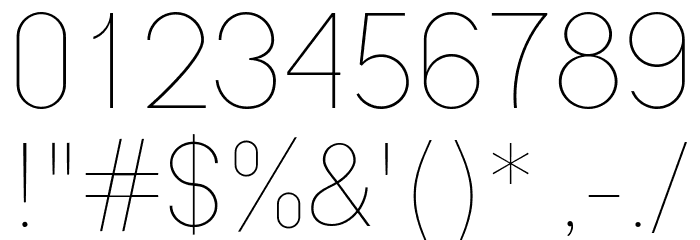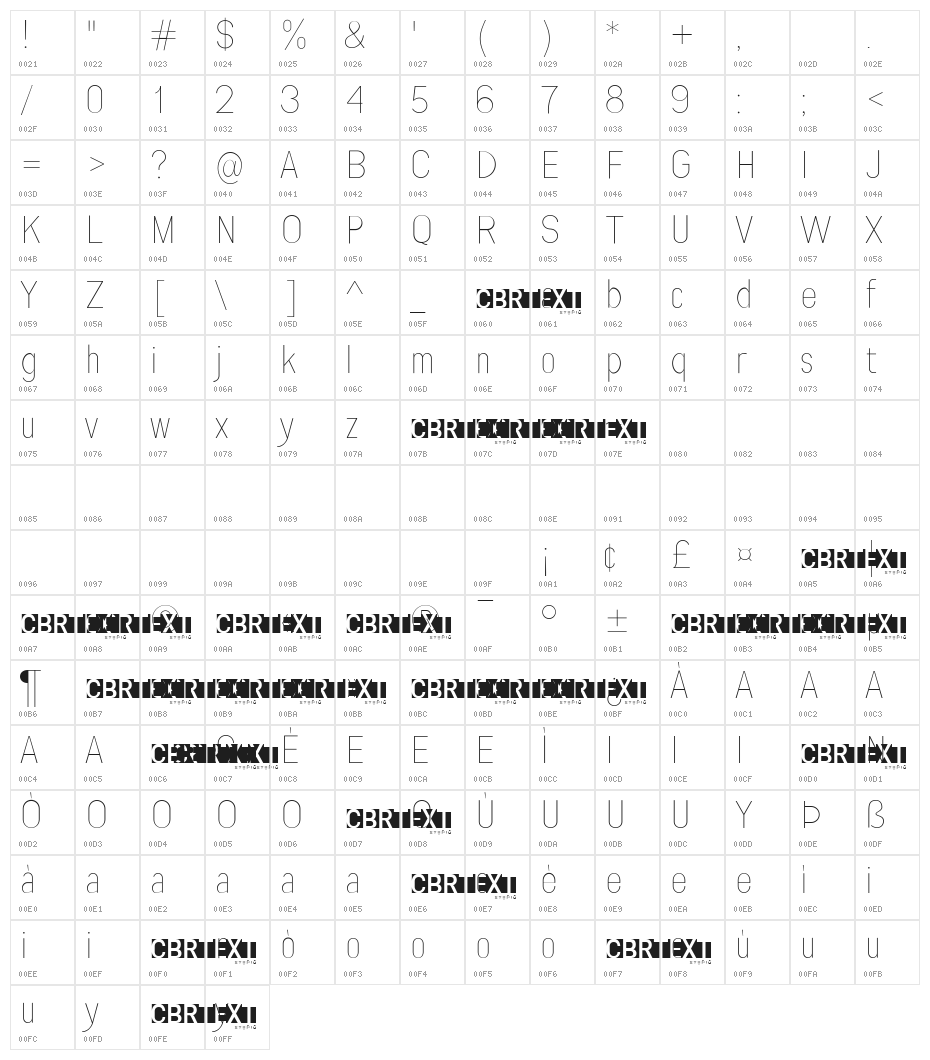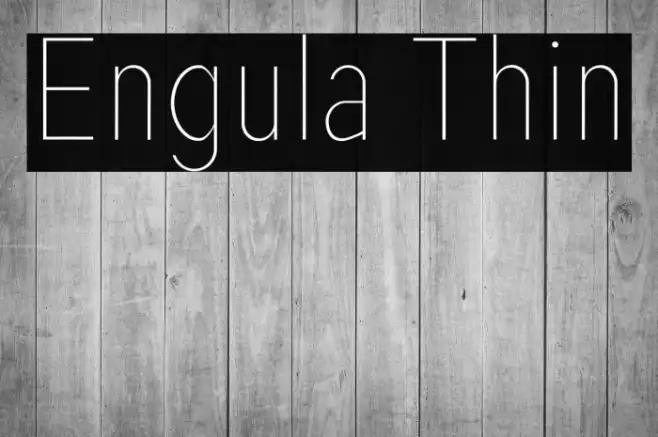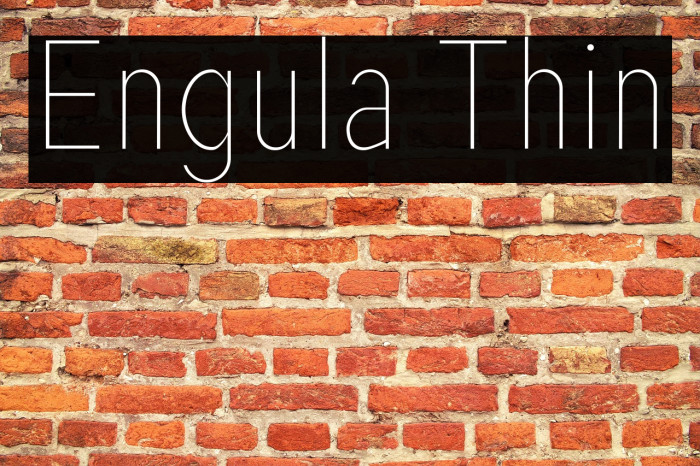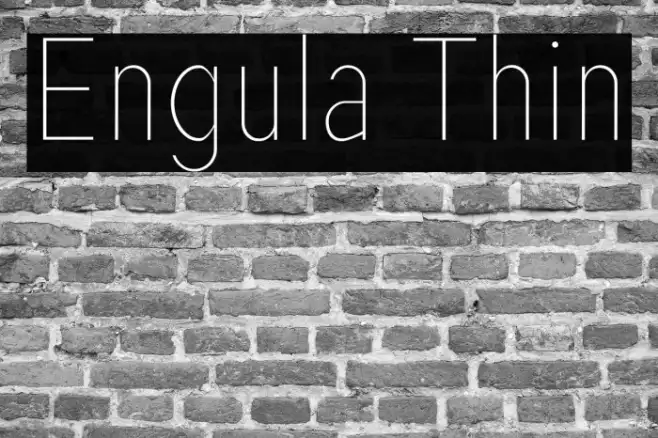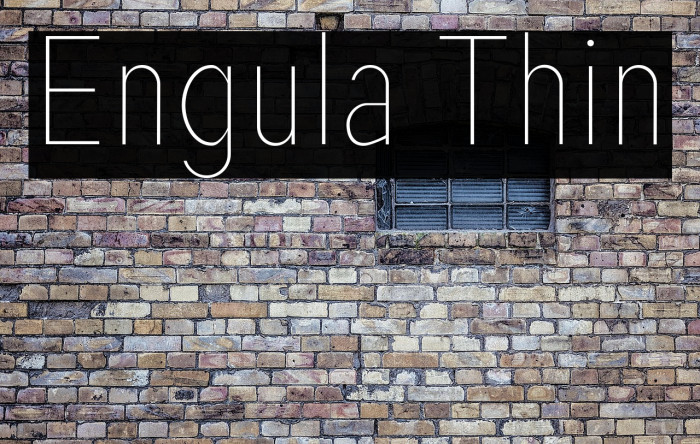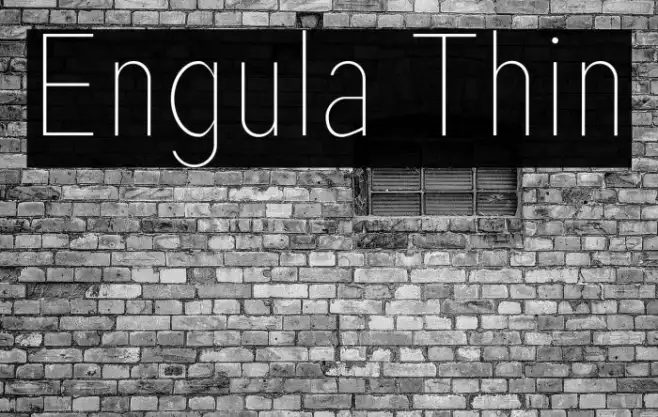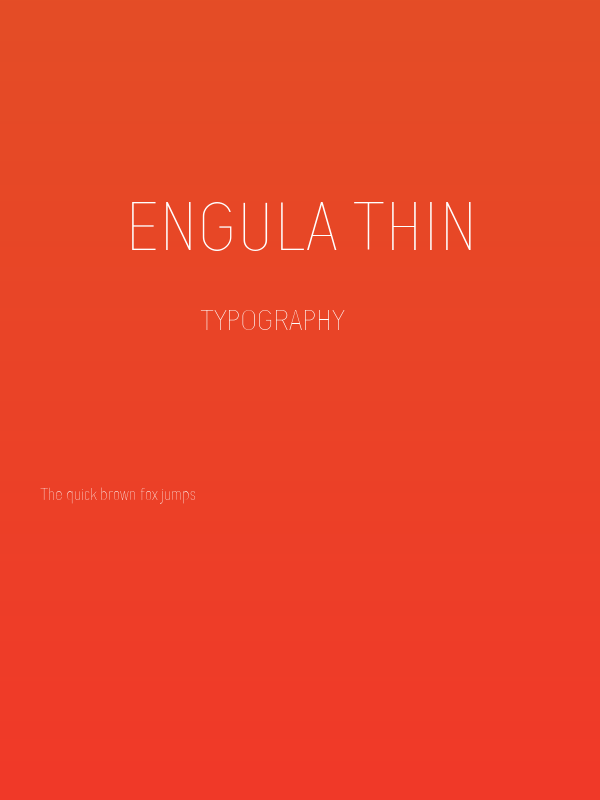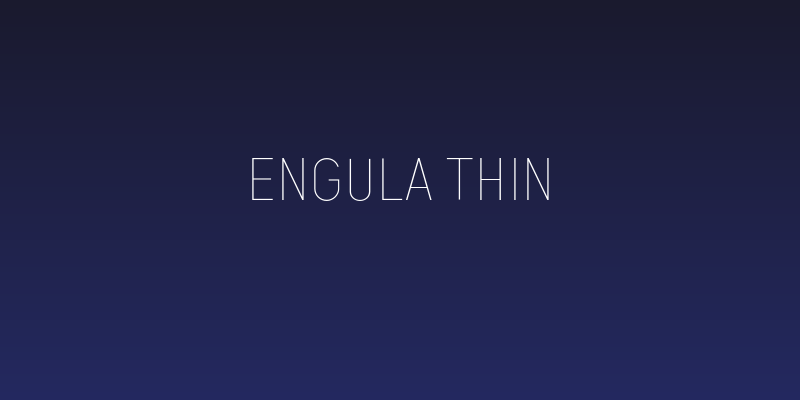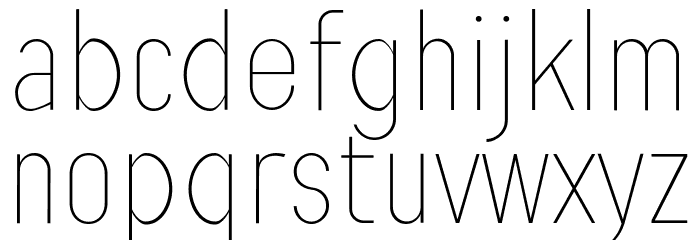
Engula Thin Font
Engula Thin Description
This font features a sleek and modern design with thin, elongated letterforms that convey a sense of elegance and sophistication. The characters are evenly spaced, providing a clean and airy appearance. The font's minimalistic style is accentuated by its high contrast between the thin strokes and the ample white space surrounding each letter. The uppercase and lowercase letters maintain a consistent height, contributing to a harmonious and balanced look. The numerals and special characters are crafted with the same attention to detail, ensuring uniformity across all elements.
| Proposed Projects | Ideal for use in fashion magazines, luxury branding, minimalist websites, and modern art galleries. |